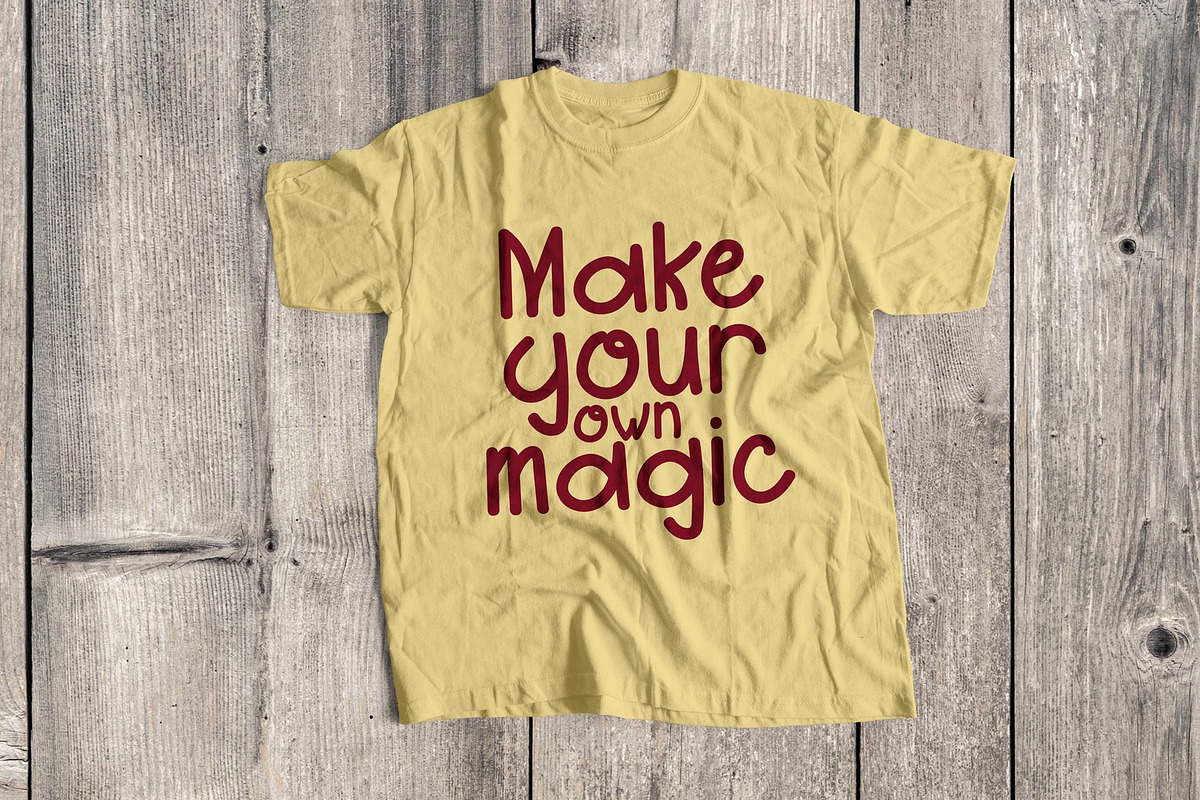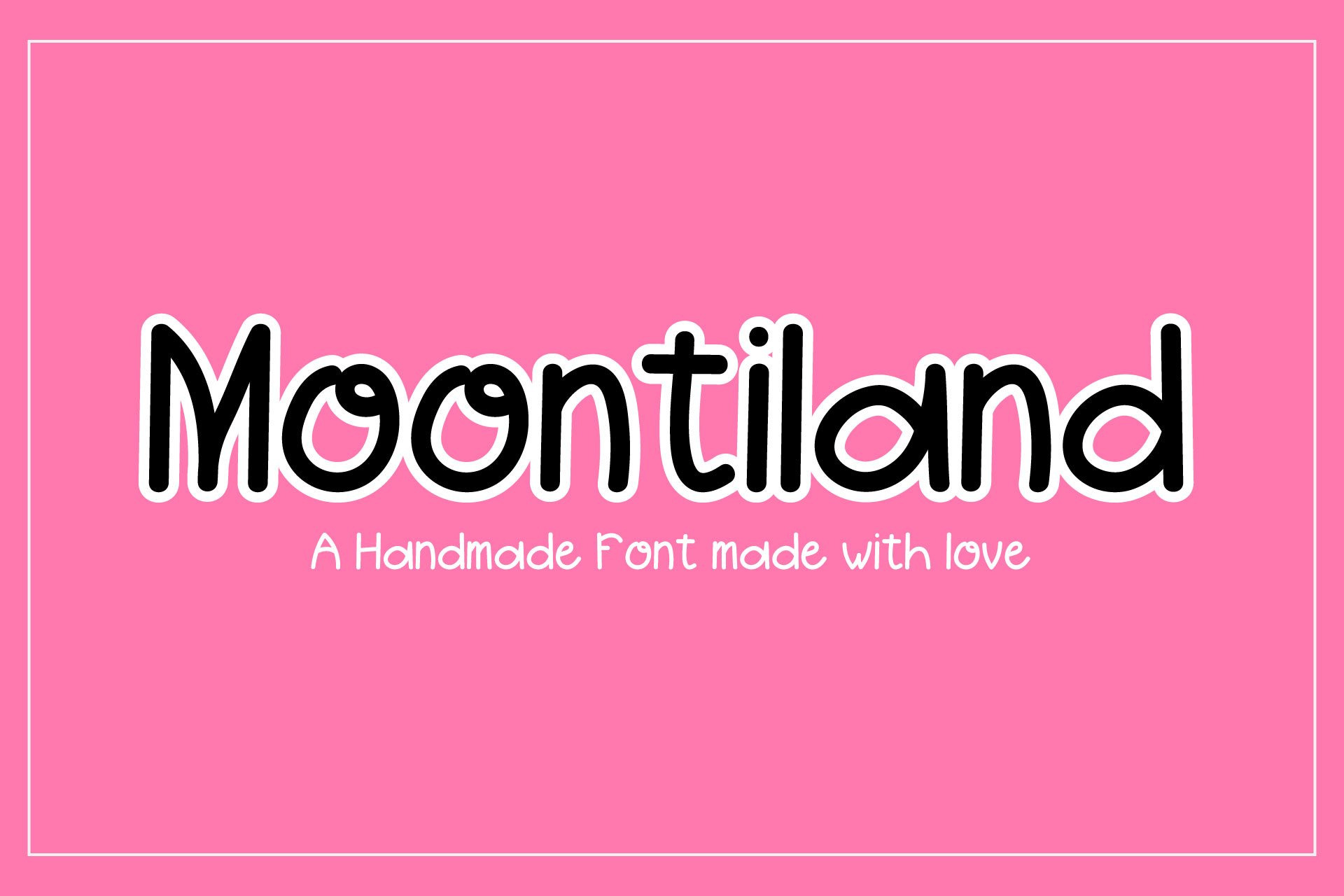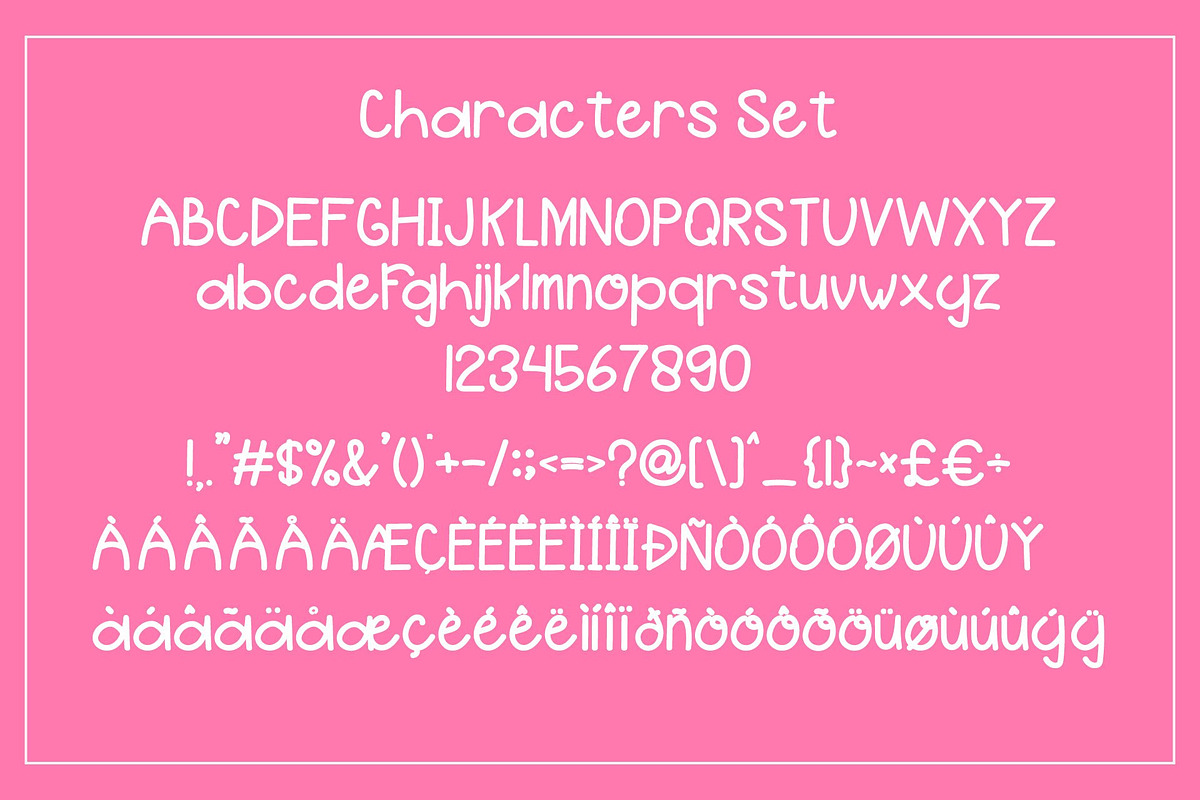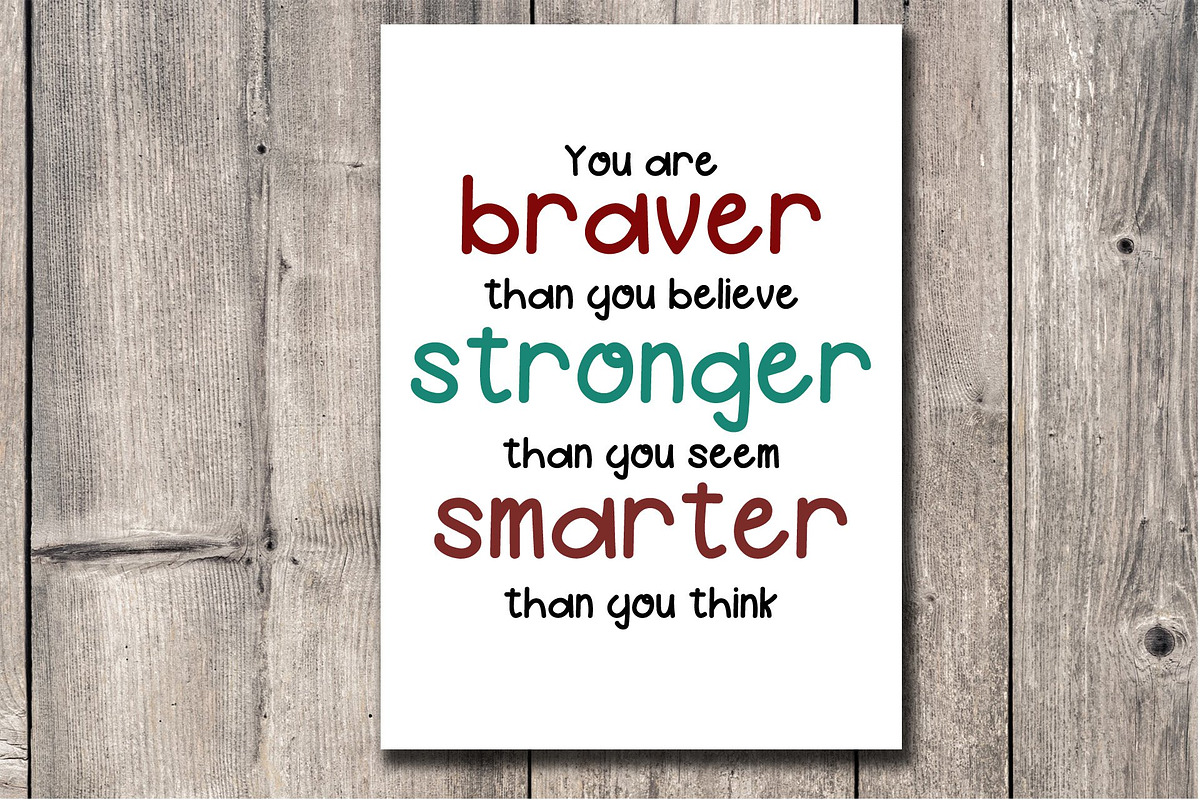
Moontiland - Fun Sans Serif Font
Moontiland is a fun font that can be used for any projects. It includes:
- Uppercase and lower case
- additional characters
- punctuation and numbers